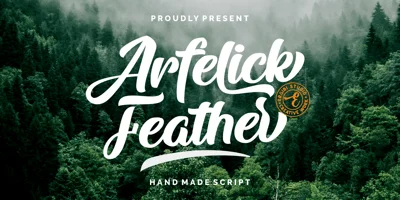
Arfelick Feather Font
Arfelick Feather Font is ideal for delicate design applications including luxury beauty branding, ethereal fashion labels, bird watching publications, nature-inspired packaging, spa and wellness marketing, artistic stationery design, botanical illustrations, and sophisticated feminine branding. This graceful typeface captures the lightness and natural elegance of feathers through flowing letterforms that embody organic beauty and delicate sophistication.
What makes Arfelick Feather Font exciting is its exquisite representation of natural lightness and organic grace through letterforms that mirror the delicate structure and flowing movement of feathers. The font features soft curves and gentle details that evoke the weightless beauty of avian plumage and natural flight. Its ethereal character appeals to audiences who appreciate natural beauty, organic design, and sophisticated femininity.
The Arfelick Feather Font family includes various nature-inspired styles such as Light, Regular, Bold, and decorative alternates with feather-like flourishes that enhance the organic aesthetic. These delicate options provide comprehensive design solutions for creating authentic nature-based brand identities that celebrate natural elegance and organic sophistication.
This distinctive nature typeface brings genuine organic authenticity to contemporary design projects. Luxury beauty brands and wellness companies choose Arfelick Feather Font for its exceptional ability to communicate natural elegance and ethereal sophistication. The font's feather inspiration makes it perfect for premium skincare lines, wellness retreats, and luxury lifestyle brands that want to evoke natural beauty and organic refinement. Its graceful character ensures memorable brand recognition while maintaining the authentic aesthetic that defines exceptional nature-focused design work.